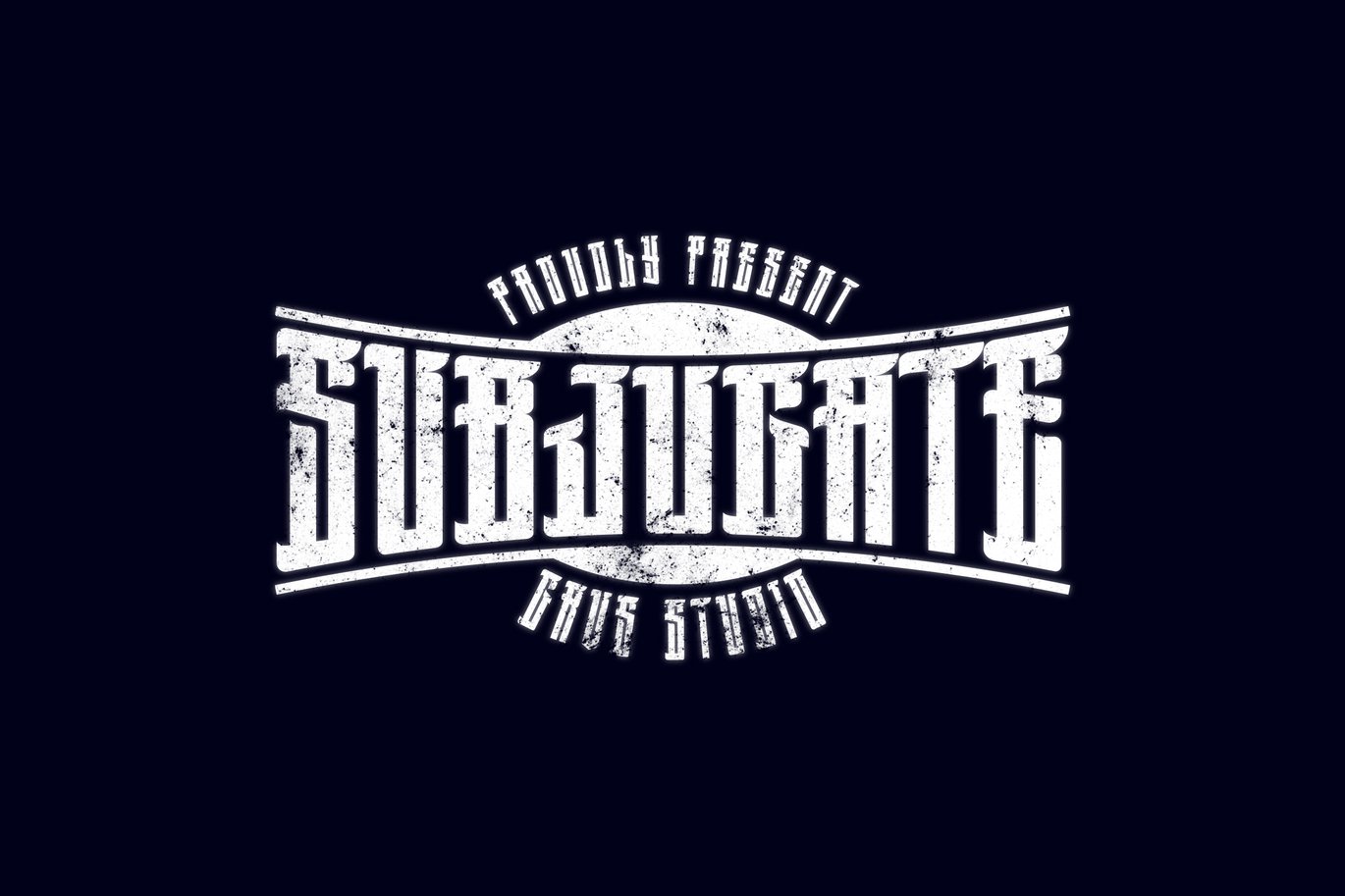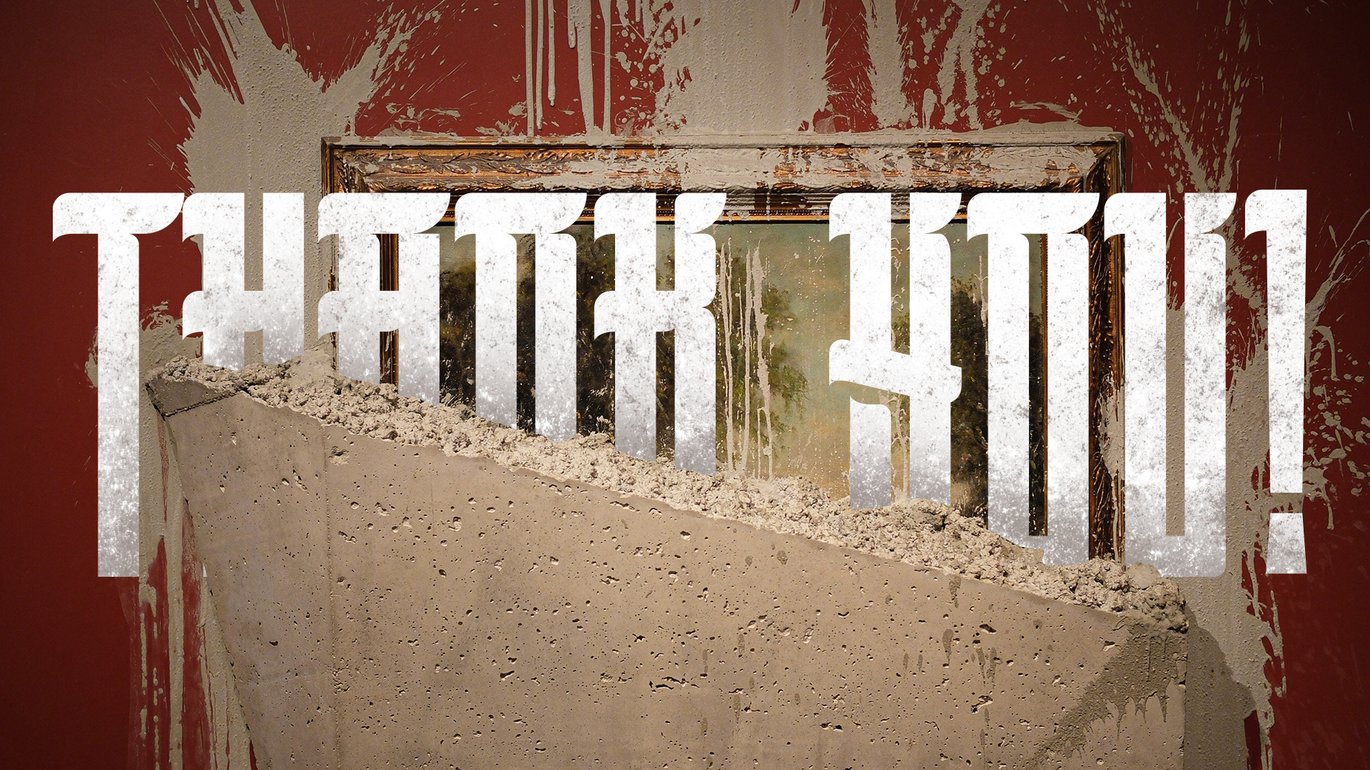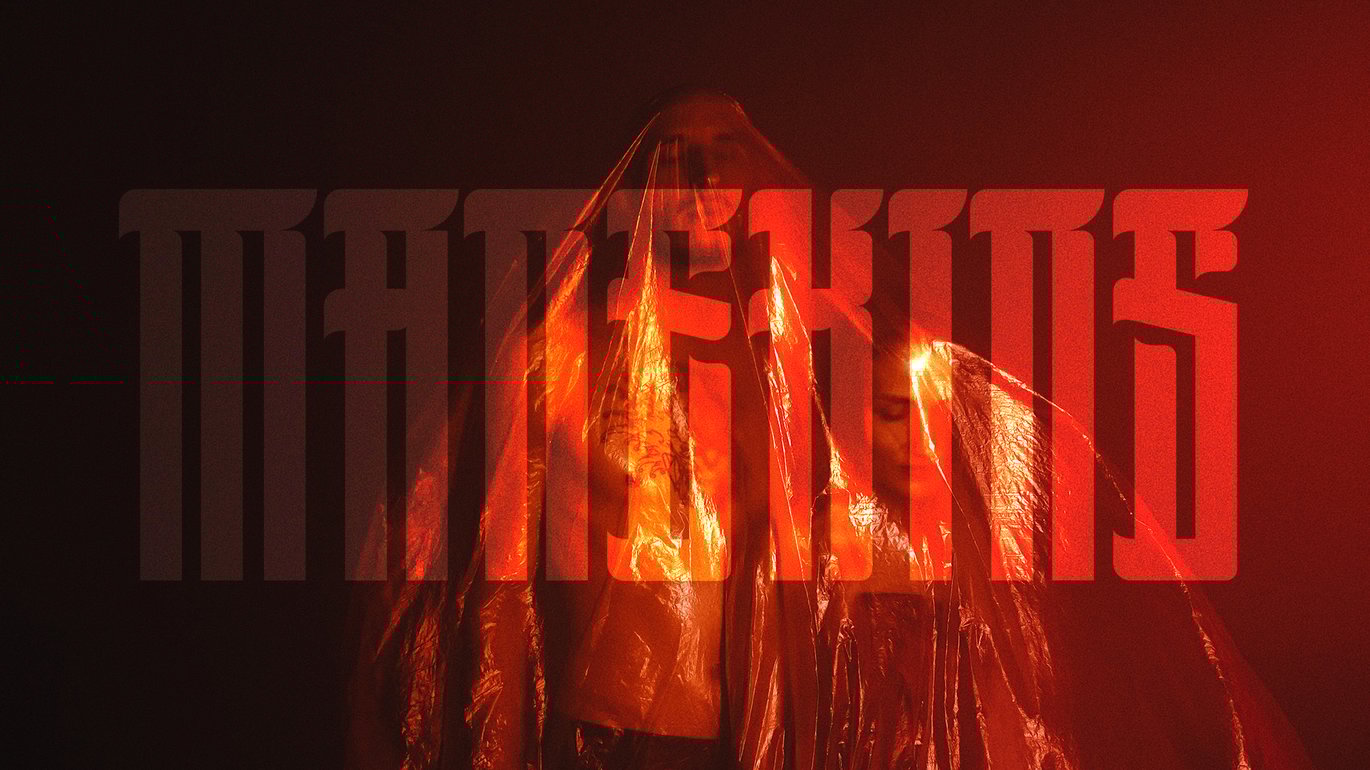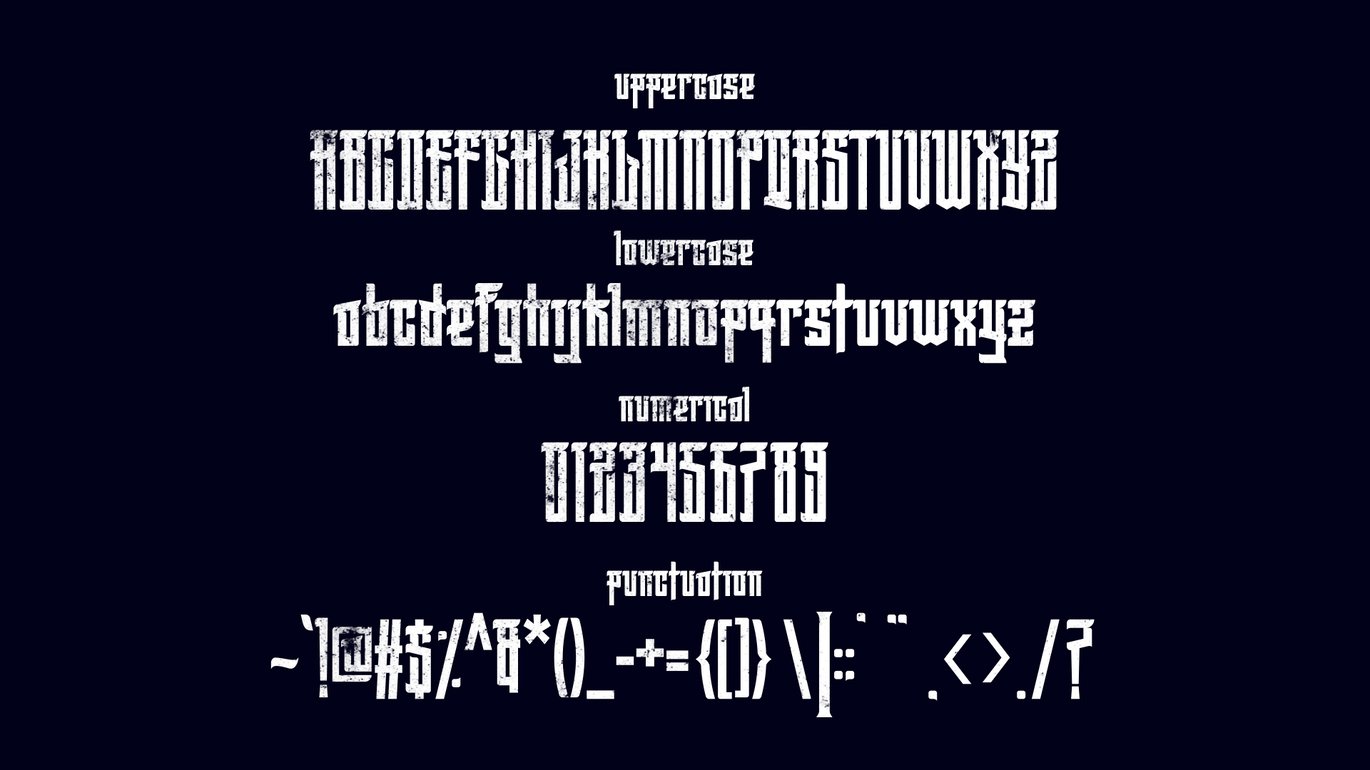
Subjugate Dark Esport Font
GRVS Subjugate Dark Esport Font is our new item that is suitable for your team logo, or community logo with a Dark theme.
Great for Logo, Sticker, Jersey, Invitation Card, Brochures, etc.